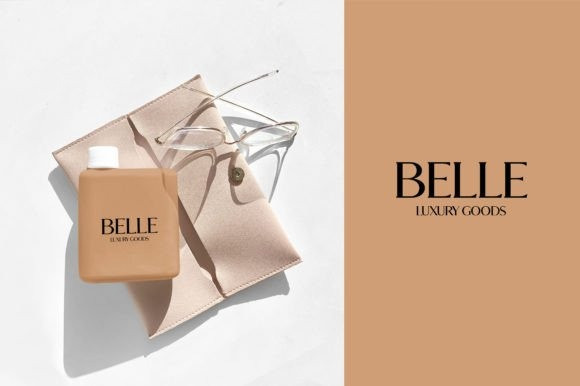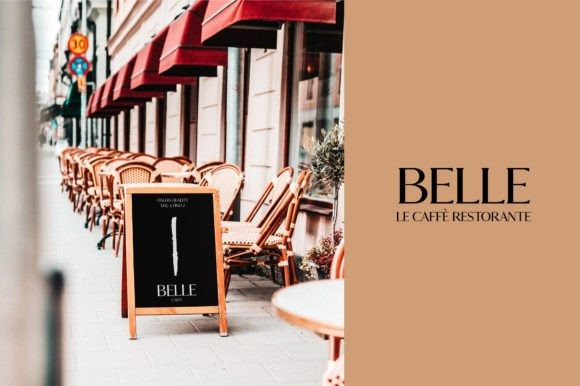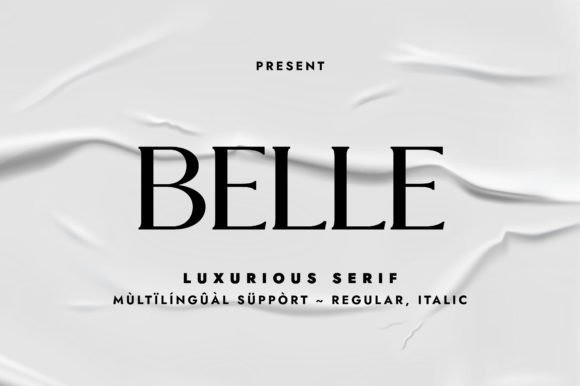
Belle Font
Belle Font as the name suggests is a minimalist serif font that was thought in every glyph construction to express the delicate meaning of beauty. It comes with two effects, regular and effect. It has a powerful look that renders it a valid choice when it comes to branding, logo design, cosmetics design, packaging, etc.
Confidently use it in your creation and will notice how much power yet delicacy hold inside!